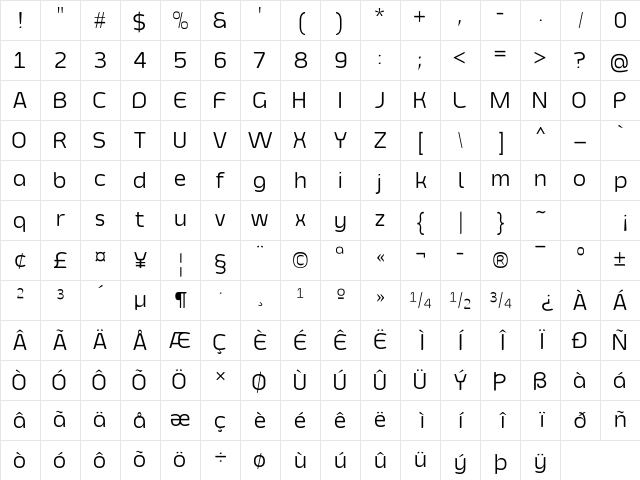
Complete Smoolthan Thin glyph index. Displaying only characters natively supported by Smoolthan Thin font.
Smoolthan is a composed and adaptable typeface that performs quietly and consistently across a wide range of design contexts. Its slender proportions lend an understated elegance to any composition.